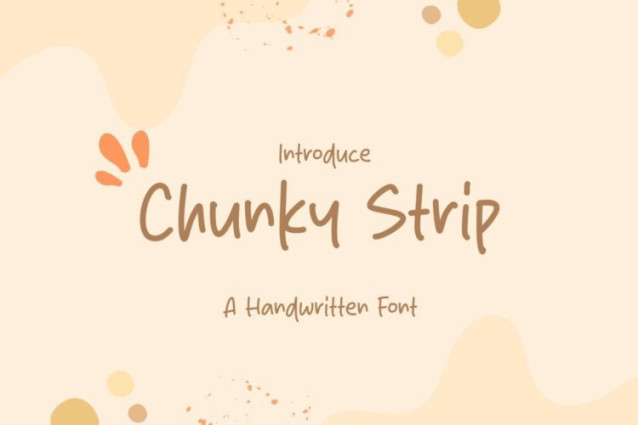
Chunky Strip Font
Chunky Strip Font is a simple and friendly handwritten font. Its natural and unique style makes it incredibly fitting to a large pool of designs. The only limit is your imagination!